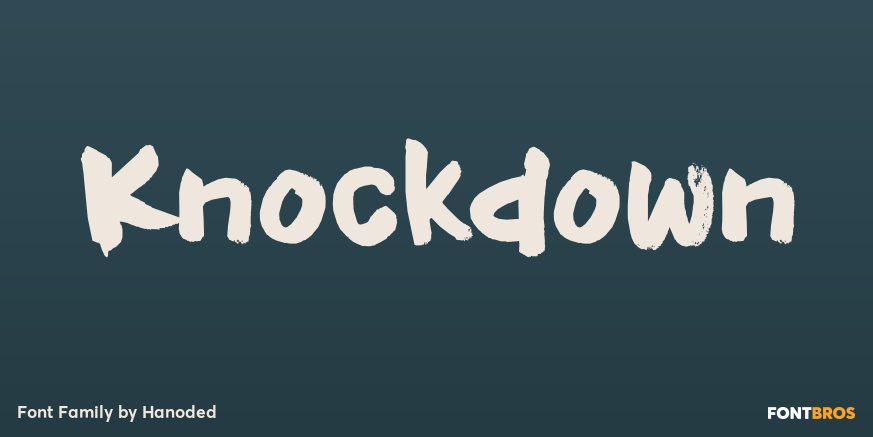
About Knockdown
Finding my long-lost inkwell was a lucky moment for me and it resulted in a whole bunch of brushy/inky fonts. The latest font to leak out of this well is Knockdown. It is a bold and wild brushface, but very legible. Use if for your posters, book covers…